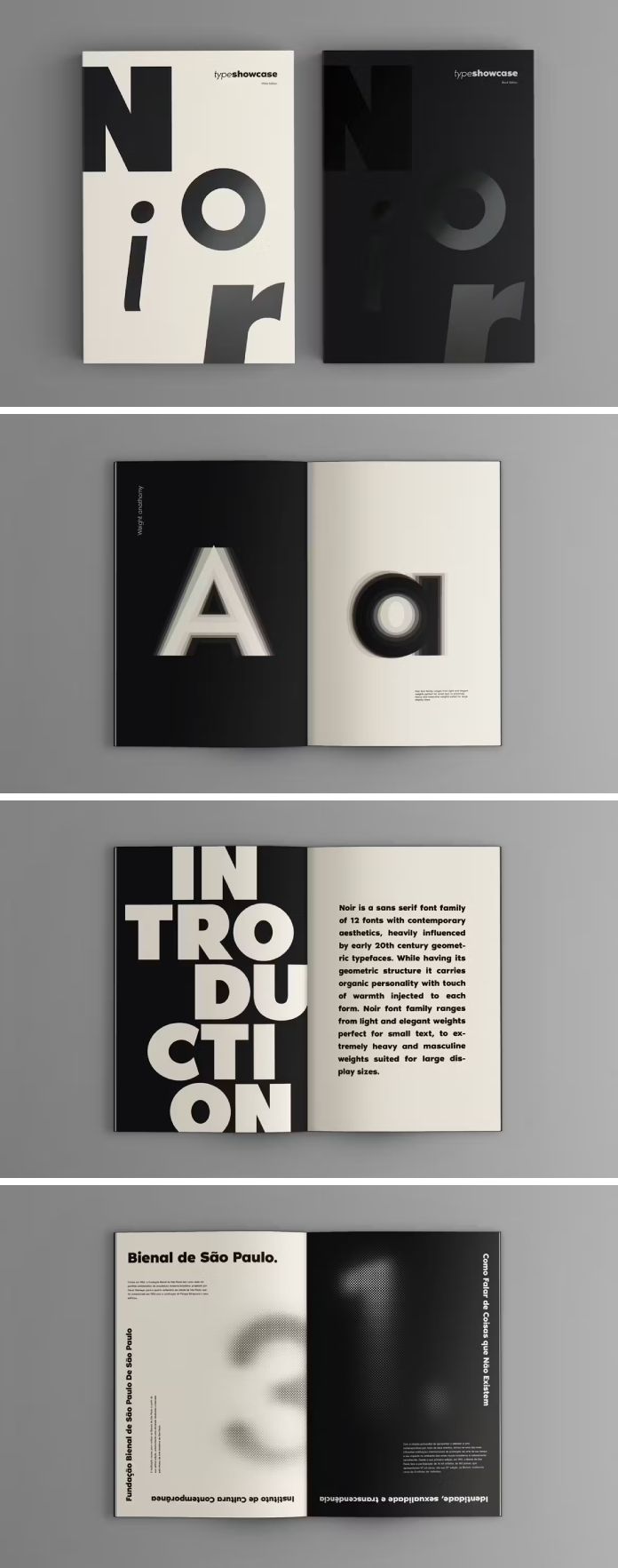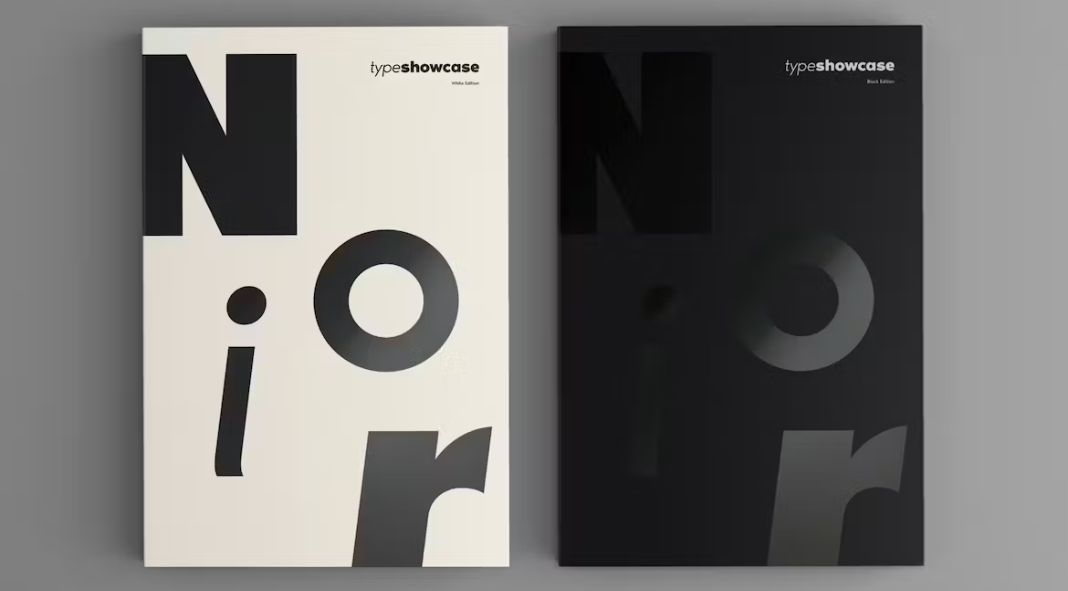
In the vast landscape of typography, where the past seamlessly merges with the future, the Noir Pro font family by Mindburger Studio emerges as a beacon of sophistication and versatility. A sans serif collection comprising 12 meticulously crafted fonts, Noir Pro effortlessly marries the geometric aesthetics of early 20th-century typefaces with a contemporary twist, resulting in a font family that breathes life into every character.
Geometric Roots with Organic Personality:
At the heart of Noir Pro lies a geometric structure reminiscent of the early 1900s, showcasing a commitment to timeless design principles. However, what sets Noir Pro apart is its ability to inject each form with an organic personality and a touch of warmth. This delicate balance between precision and humanity allows the font family to resonate across a spectrum of design applications.
Weighted Perfection:
Noir Pro transcends the ordinary by offering a diverse range of weights, from light and elegant to heavy and masculine. Whether you’re working on intricate small text or commanding large display sizes, this font family has you covered. The carefully curated weights provide designers with the flexibility to bring their creative visions to life with unparalleled finesse.
Professional Features for Artistic Expression:
To elevate your design game, Noir Pro comes armed with a rich arsenal of OpenType features. These features ensure highly professional use, allowing designers to explore a myriad of possibilities. From ligatures and stylistic alternates to discretionary ligatures and more, Noir Pro empowers designers to create visually stunning and cohesive compositions.
Global Appeal with Language Support:
Noir Pro is not confined by borders; it is a global player. With extended language support encompassing Latin, Cyrillic, and Greek scripts, designers can confidently embark on projects with international reach. This multi-language capability ensures that Noir Pro seamlessly adapts to diverse linguistic landscapes without compromising its aesthetic integrity.
Noir Pro stands as a testament to the enduring allure of classic design infused with a contemporary spirit. Its geometric roots, organic personality, diverse weights, professional features, and global language support make it a must-have for designers pushing the boundaries of creativity. To experience the seamless integration of past and present, download the Noir Pro font family from Envato Elements today and embark on a journey of design sophistication.